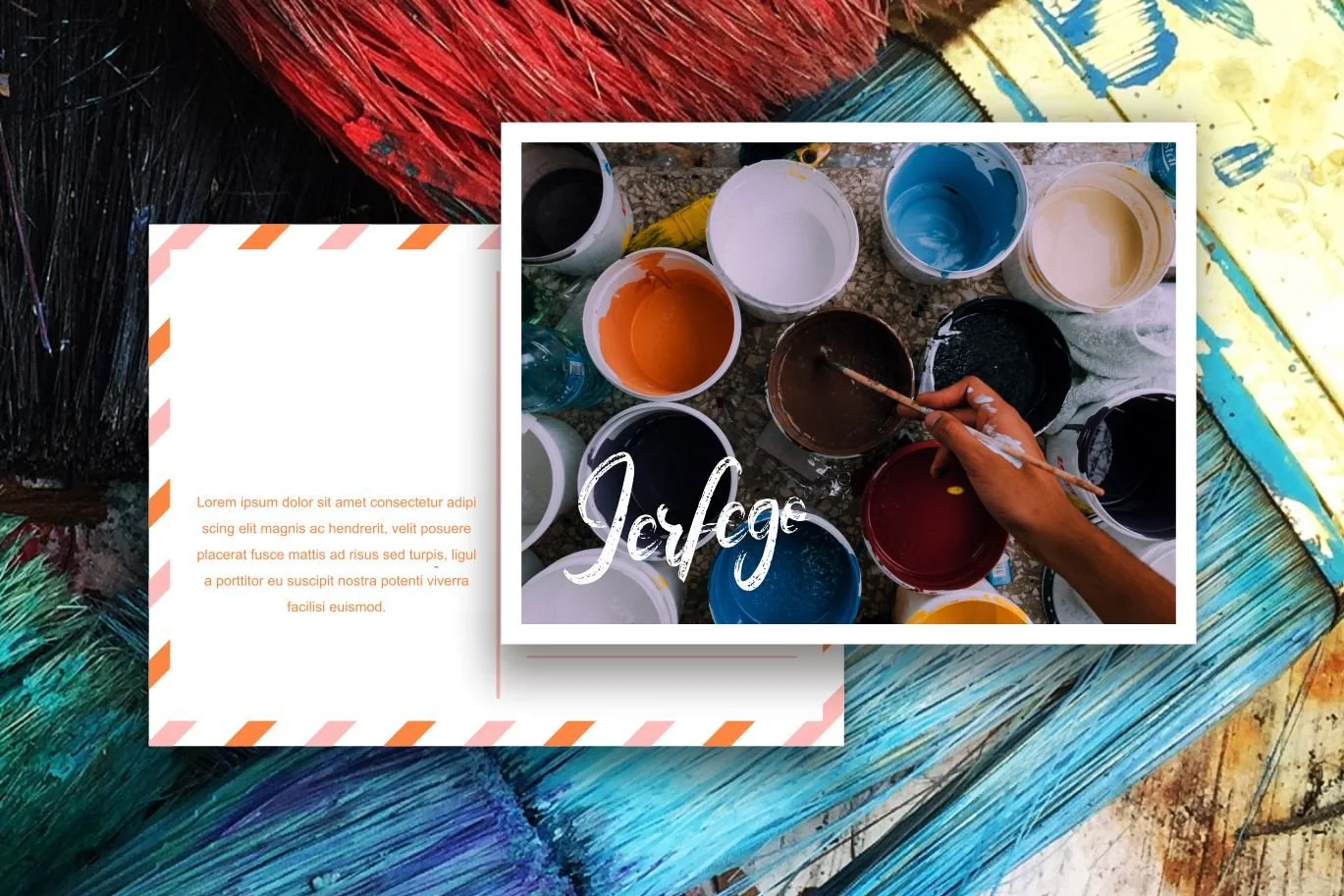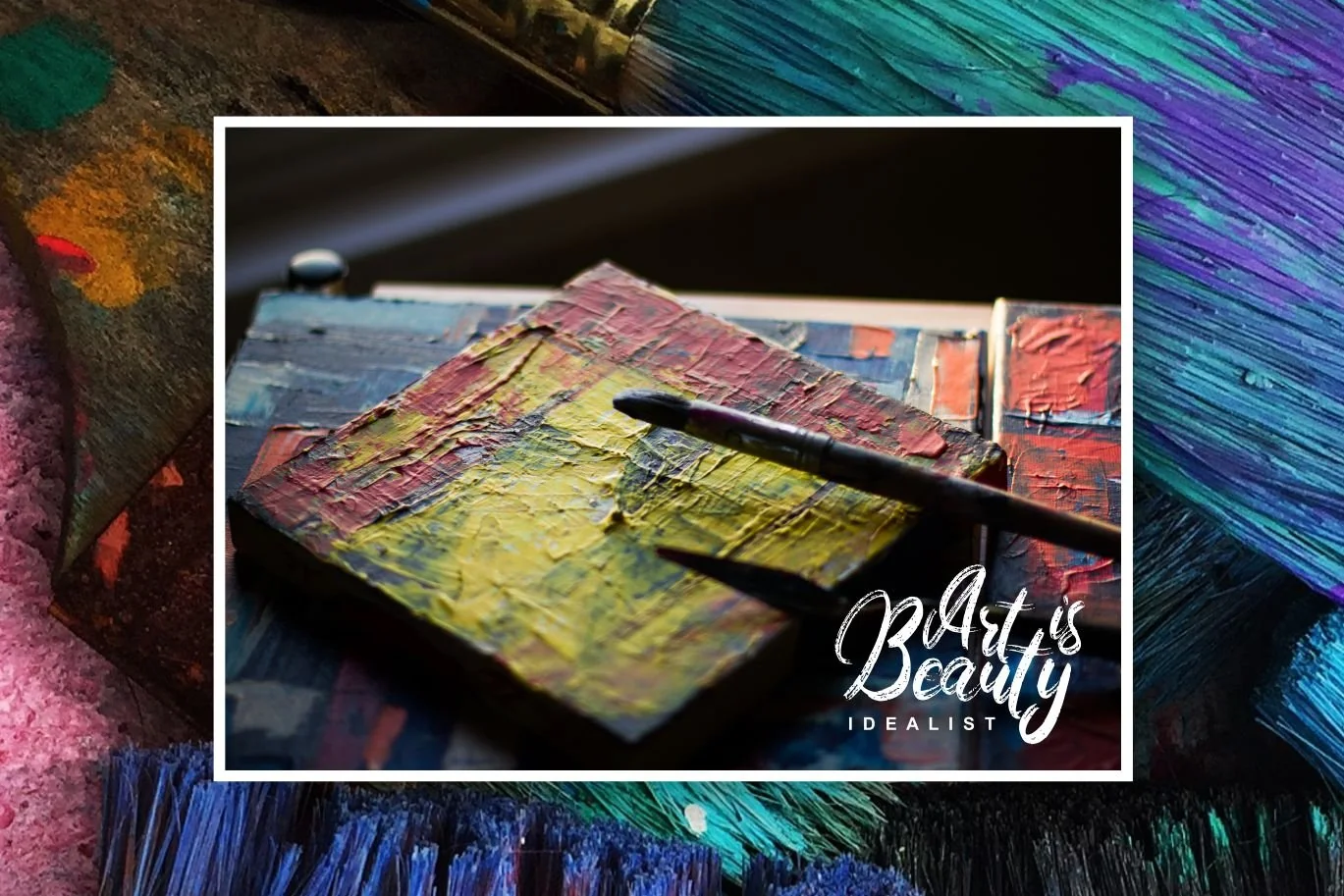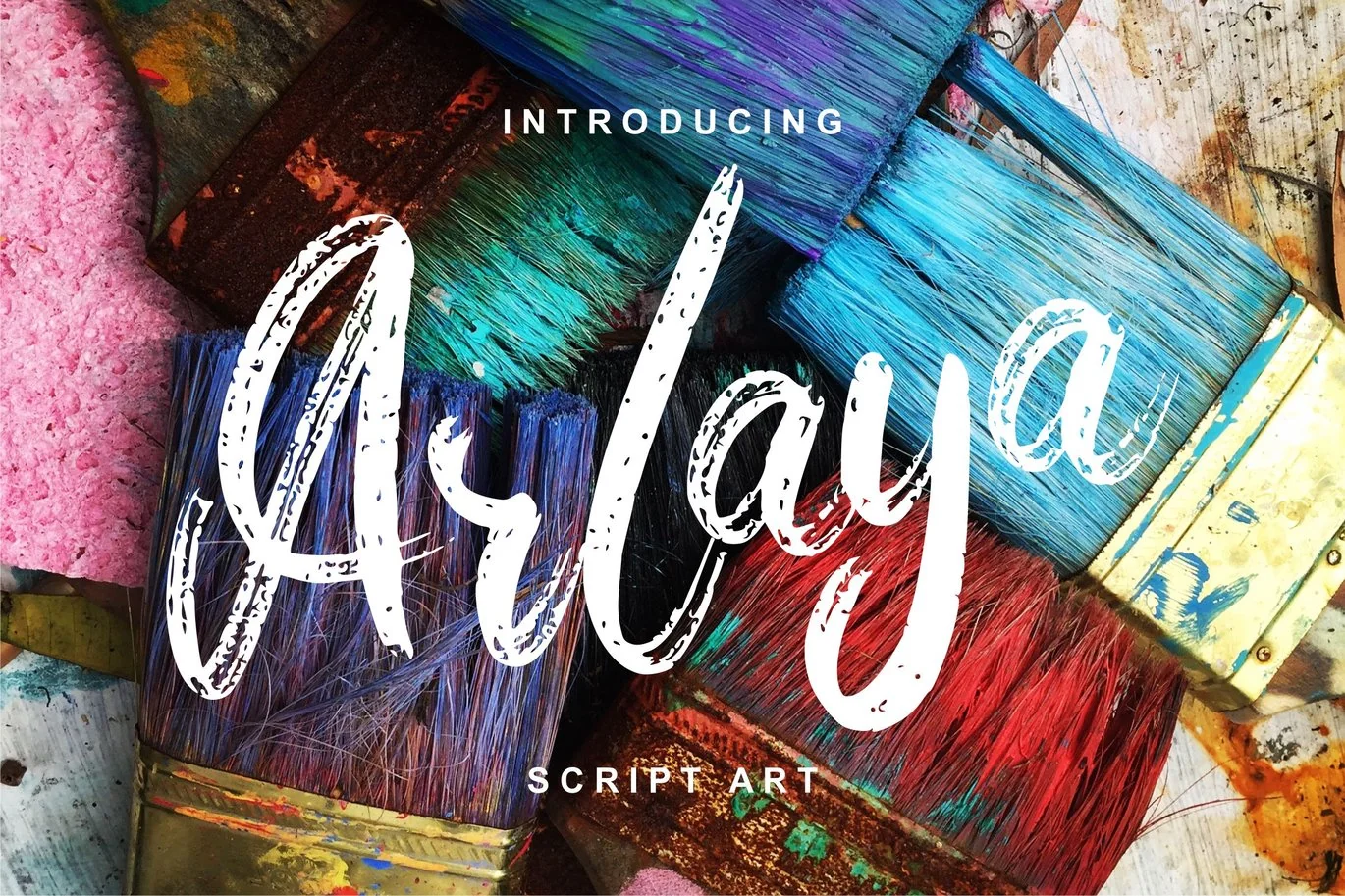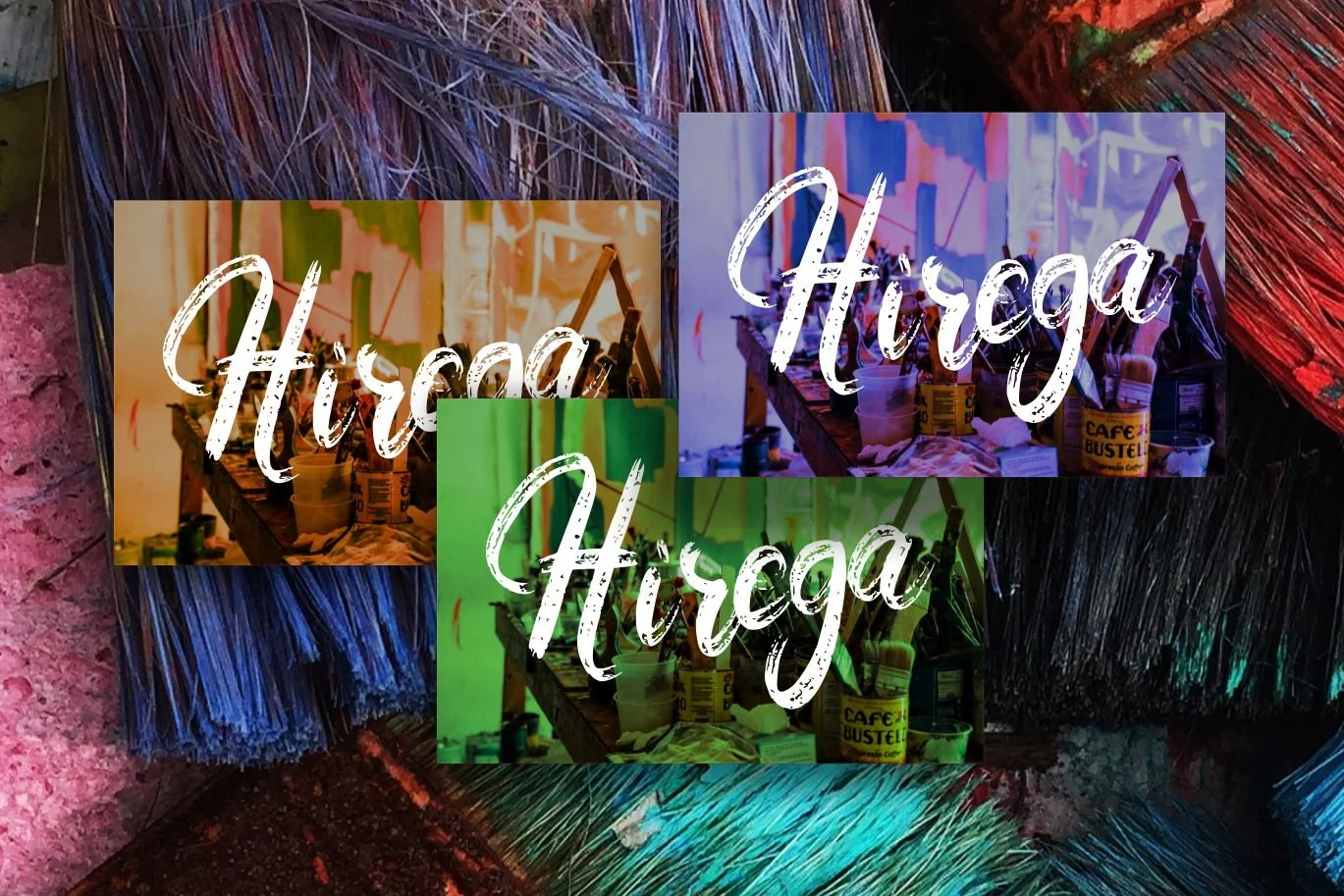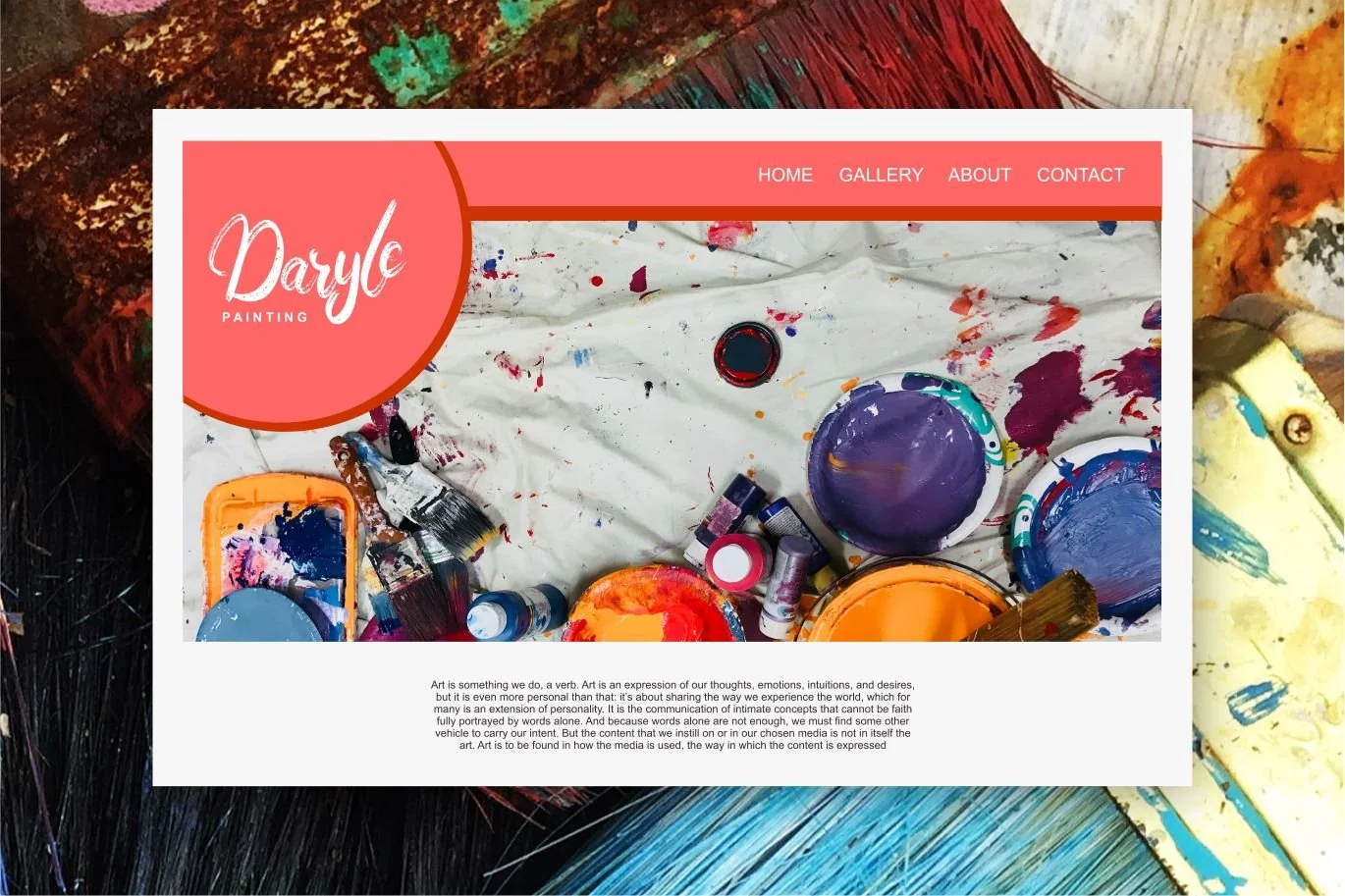
Arlaya | Script Art Font
Arlaya | Script Art Font with a calligraphy style, So beautiful on invitation like greeting cards, branding materials, business cards, quotes, posters, and more!